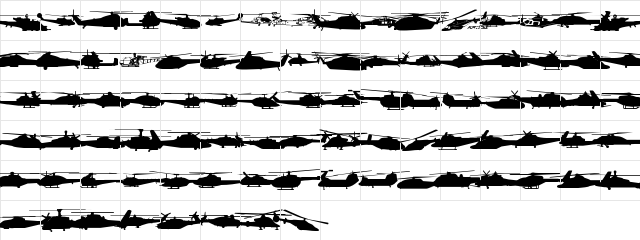
Hello Copters Solid Regular
Design Context for Hello Copters Solid Typeface
Hello Copters Solid is a composed and adaptable typeface that performs quietly and consistently across a wide range of design contexts.